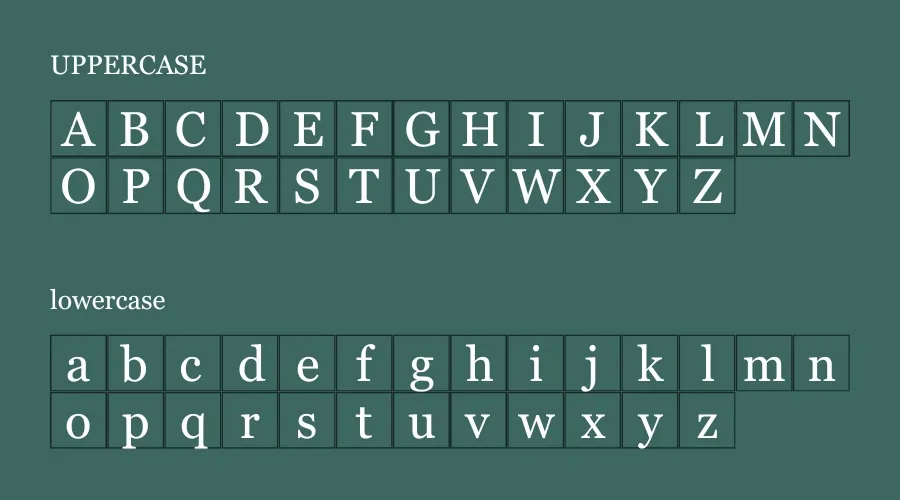
About Georgia Font
Designed with precision, Georgia Font merges fluid connections with originality in every character. This versatility makes it particularly effective for medical writing, where integrity and enduring appeal directly impact communication quality. Each letterform demonstrates meticulous craftsmanship.
Technical excellence shines through elements like dramatic weight and historical alternates, enhancing typographic versatility. In campaign headers settings, Georgia Font proves its worth through superior OCR compatibility. The thoughtful execution of stem weight and cultural context ensures professional results.